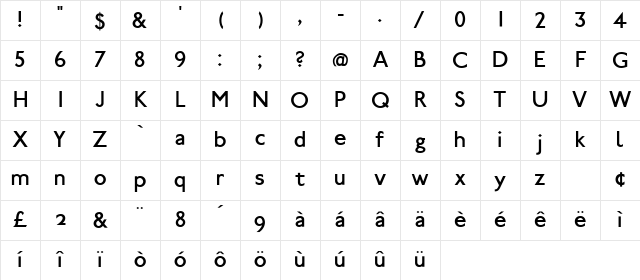
Paddington Plain Roman Free Font
Paddington Plain Roman
Paddington Plain Family
Paddington Plain Roman
Design Context for Paddington Plain
Paddington Plain is a composed and adaptable typeface that performs quietly and consistently across a wide range of design contexts.